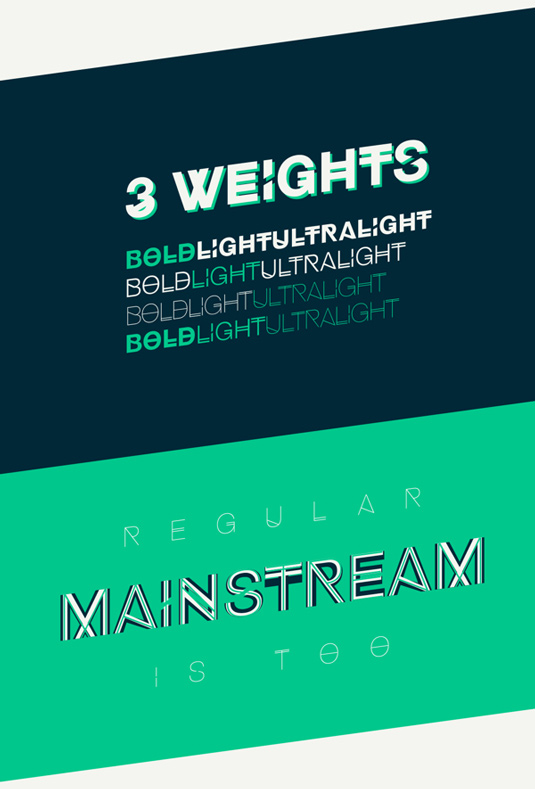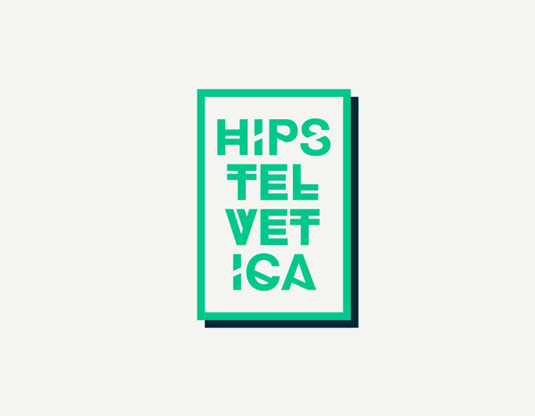
Font of the day: Hipstelvetica
Every day we showcase the best fonts on the web. Today it's Hipstelvetica by José Gomes, which is totally free to download!
Hipstelvetica by José Gomes
Today's font of choice Hipstelvetica was created by freelance art director José Gomes. "Hipstelvetica is an experimental display font family," Gomes comments on Behance. "It was created as a personal project, inspired by the legendary helvetica design. It's my first iteration into typography design and it's completely free for both personal and commercial use."